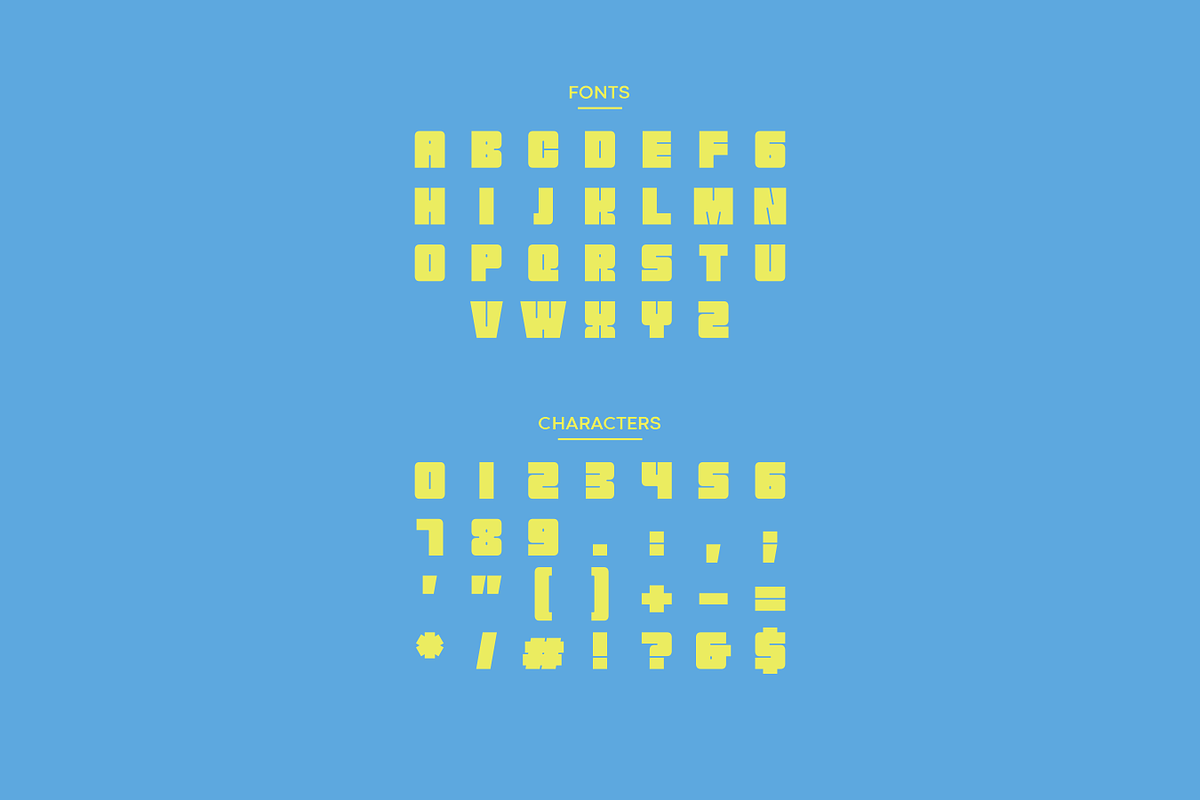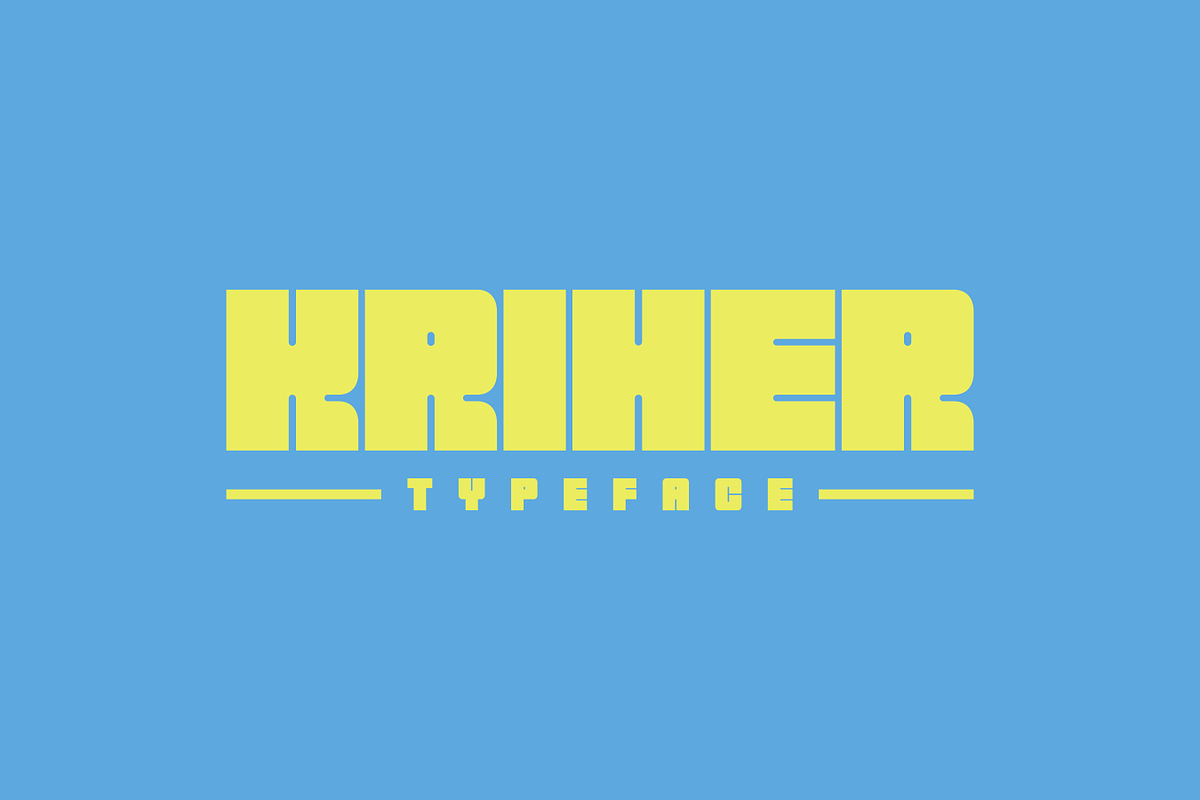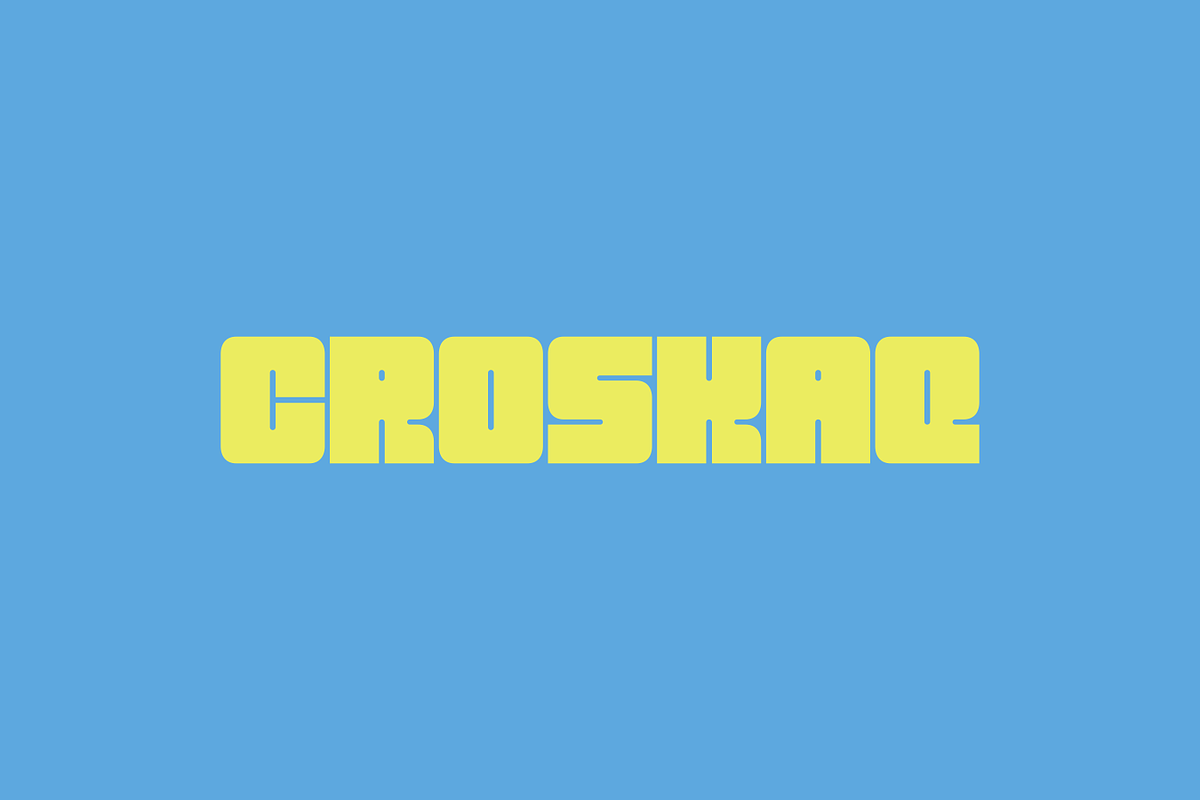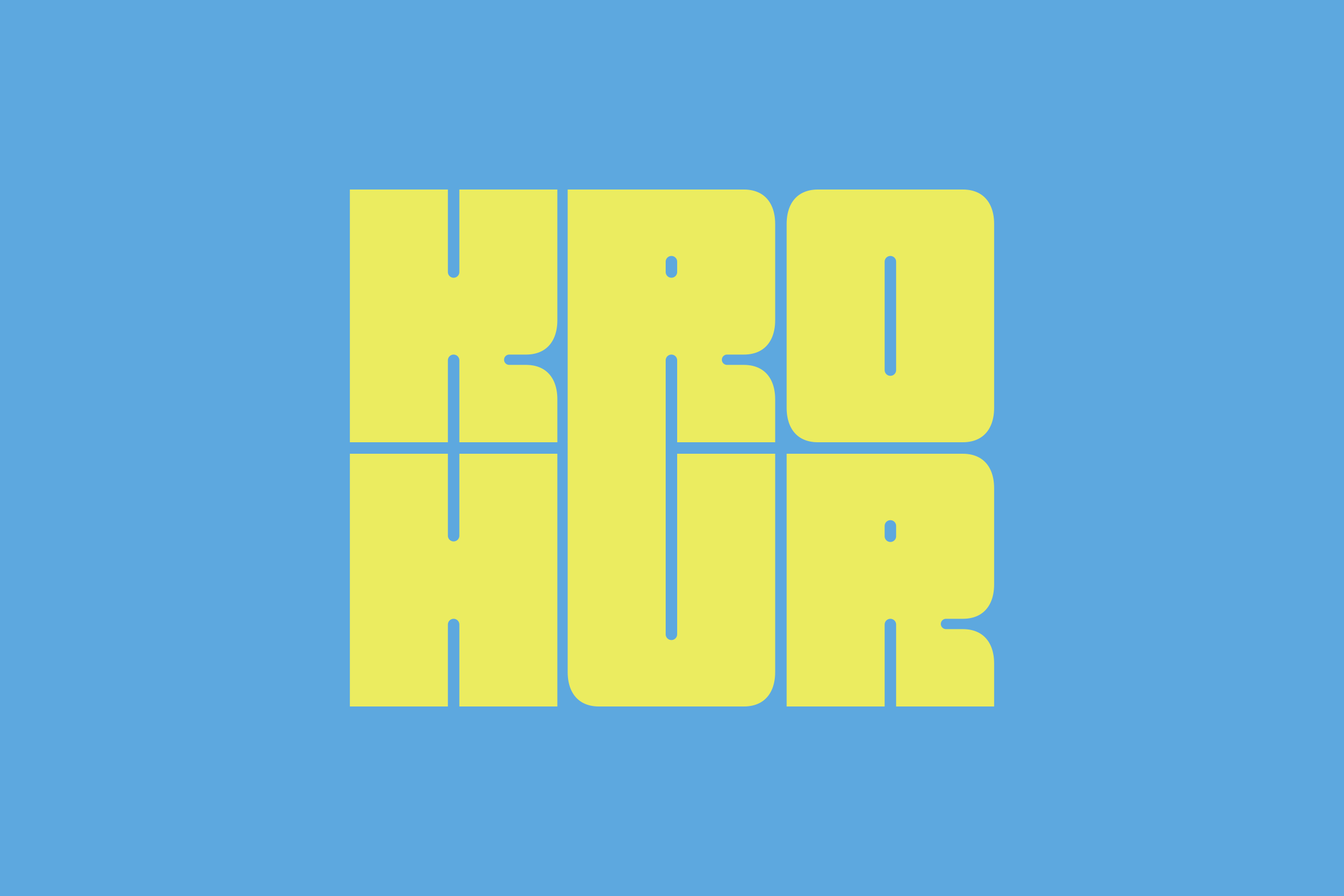
Krohur - Modern Display Typeface
Krohur a bold and powerful all-caps font to make your message stand out, this font can be the choice to maximize your goals. This font is suitable for poster titles, packaging design, headlines, logotypes, motion graphics, movie titles, sports promotion and future technology.
- Punctuation & Number